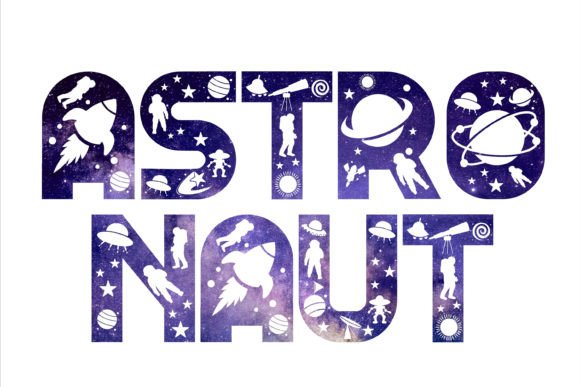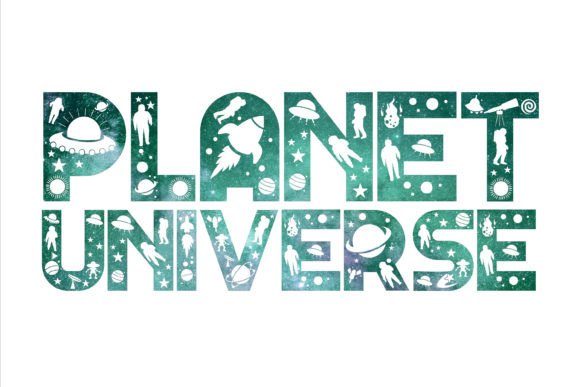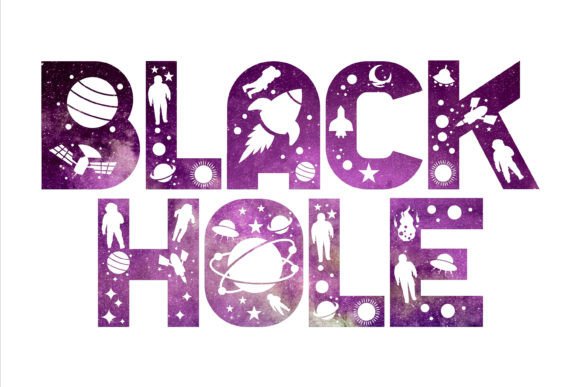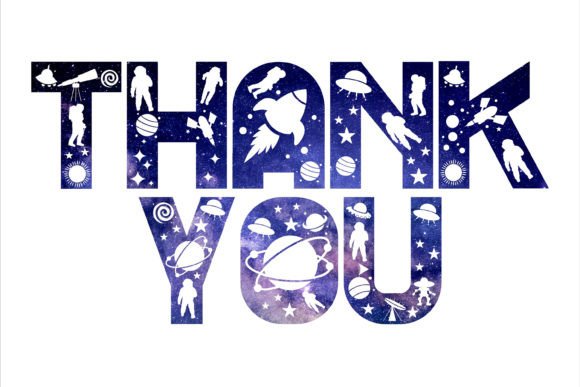
Get Ready to Blast Off with the Astro Space Font
Have you ever stared up at the night sky, lost in the vastness of the universe, and felt a surge of creativity? I know I have. The stars, planets, and galaxies seem to hold secrets and stories waiting to be told. For designers, this sense of wonder can be a powerful catalyst for innovation. That’s why the Astro Space Font is a game-changer.
This stunning font is designed to transport you to the cosmos, with ornaments and symbols that bring the universe to life. From stars and planets to galaxies and spaceships, the Astro Space Font is a treasure trove of creative possibilities. Whether you’re working on a natural science design project or simply want to add a touch of celestial magic to your work, this font is the perfect tool for the job.
Astro Space Font Key Features
- Font Family: Astro Space Font offers a range of styles, including bold, regular, and italic, to provide flexibility in design.
- Unique Characteristics: Astro Space Font features a futuristic and space-inspired design, with distinctive letterforms and a unique aesthetic that sets it apart from other fonts.
Astro Space Font Review
Overall, I was excited to dive into the Astro Space Font, and I must say, there are some amazing features that really shine ✨. The font’s unique blend of futuristic and cosmic elements immediately grabs your attention. The bold lines and stylized shapes create a visually striking effect that would be perfect for any sci-fi or space-themed project.
The Astro Space Font also comes with a wide range of glyphs and symbols that add to its intergalactic charm ✨. From planetary icons to spaceships, this font has everything you need to create an out-of-this-world design. Additionally, the font is highly customizable, allowing you to adjust the size, color, and spacing to suit your specific needs.
- ⚠️ Limited language support: The Astro Space Font primarily supports Latin-based languages, which may be a limitation for designers working on projects that require support for other languages.
- ⚠️ Not ideal for body text: While the font is perfect for headlines and titles, it may not be the best choice for large blocks of body text due to its stylized and ornate nature.
Overall, the Astro Space Font is a fantastic choice for designers looking to add a touch of cosmic flair to their projects. While it has some limitations, its unique features and customization options make it a valuable addition to any designer’s toolkit.
Astro Space Font is ideal for:
- Space-themed designs and graphics.
- Science fiction and futurism-inspired projects.
- Marketing materials and branding for space-related businesses.